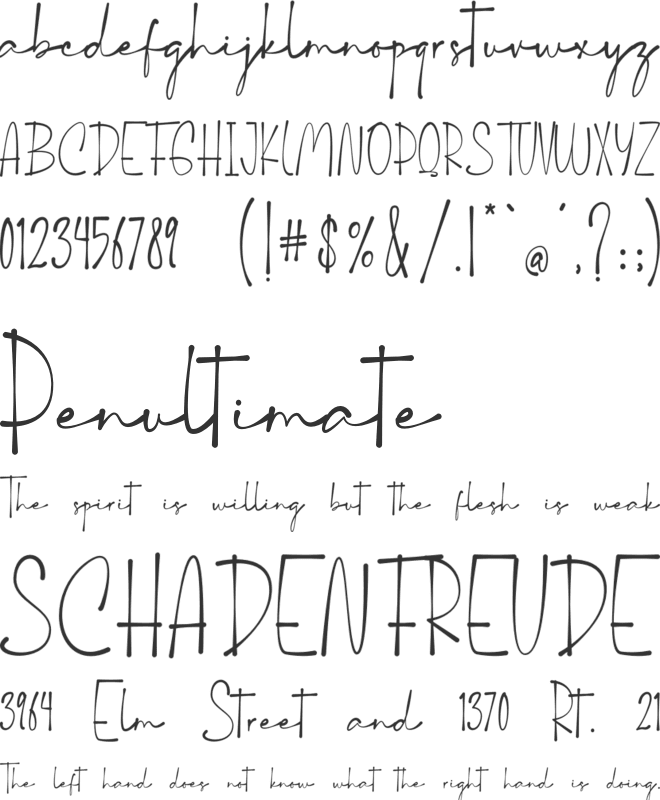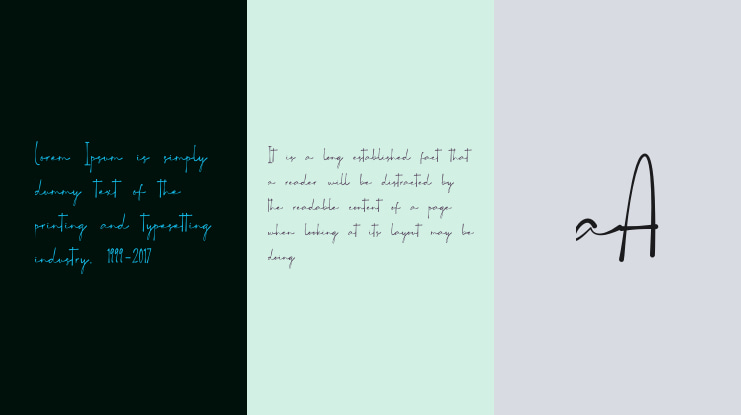
The Camellia Font
The Camellia font is a modern, handwritten script with an elegant, natural, and flowing style. Designed with a modern touch and feminine character, this font is perfect for branding, logos, social media, quotes, wedding invitations, packaging, and various creative design projects.